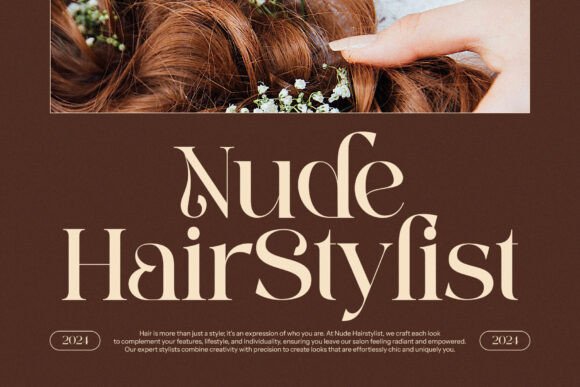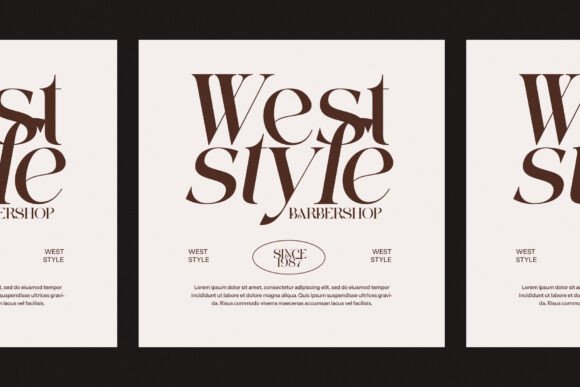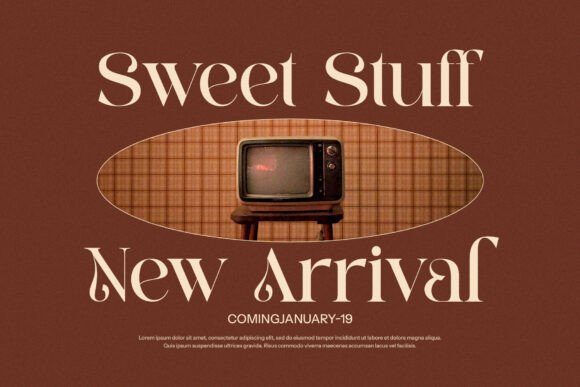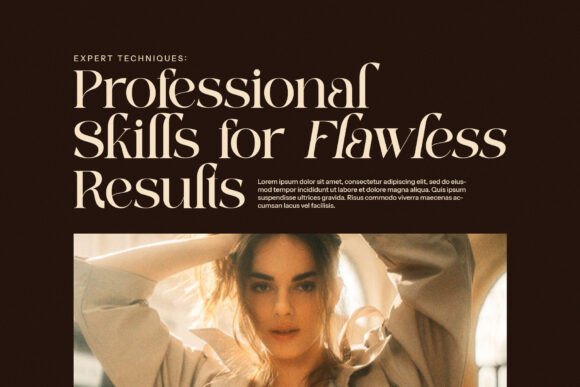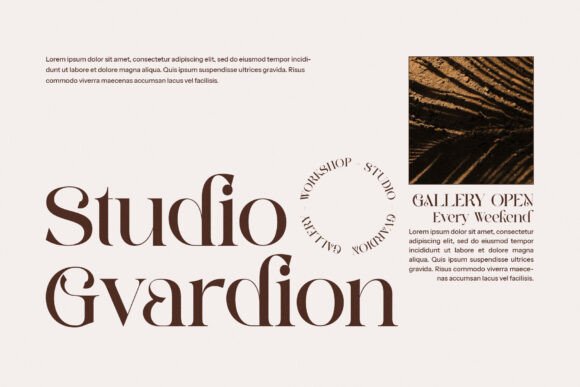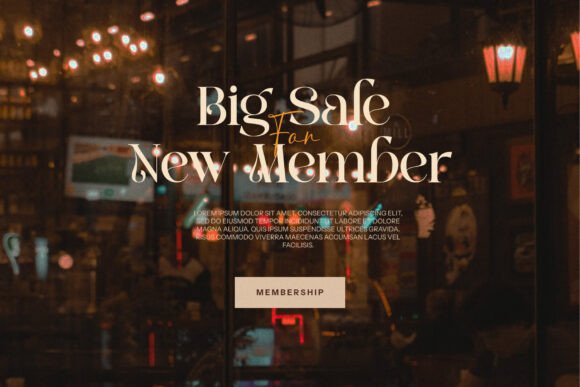
The Perfect Blend of Vintage Charm and Contemporary Elegance
Have you ever found yourself scrolling through design inspiration boards, searching for that perfect font to elevate your project to the next level? For many creatives, this is a familiar moment of frustration and excitement. The search for the perfect font can be a long and arduous one, but what if we told you that we’ve found the perfect solution?
Enter Angils Font, a beautifully crafted, modern serif typeface that seamlessly blends vintage charm with contemporary elegance. This stunning font is perfect for a wide range of design projects, from luxury branding to editorial design. With its unique letterforms and delicate curves, Angils Font is an ideal choice for brands looking to establish a luxurious, high-end aesthetic. Whether you’re a seasoned designer or just starting out, Angils Font is a valuable addition to your design toolkit.
Key Features of Angils Font
- Character Count: The font contains a wide range of characters, including Latin, Cyrillic, and Greek alphabets, as well as punctuation and symbols.
- Unique Characteristics: Angils Font features a unique blend of modern and traditional elements, with a focus on legibility and readability. Its distinctive letterforms and subtle flair make it an excellent choice for creative projects.
- Language Support: Angils Font supports multiple languages, including English, Spanish, French, German, Italian, Portuguese, and many others, making it a versatile font for global projects.
Angils Font Review
As a designer, I’ve had the chance to work with Angils Font, and I must say it’s a solid choice for certain projects. Here are some of its strengths:
- ✨ Beautiful, elegant lines that add a touch of sophistication to any design. The font’s curves are smooth and well-balanced.
- ✨ Excellent legibility, making it perfect for body text and paragraphs where clarity is key.
- ✨ Supports a wide range of languages, including many non-Latin scripts, which is a major plus for global brands and organizations.
However, like any font, Angils has its limitations:
- ⚠️ The font’s weight range is somewhat limited, with only three weights available: light, regular, and bold. This might not be ideal for designs that require a lot of nuance in font weight.
- ⚠️ Some users have reported issues with kerning, particularly when using certain character combinations.
- ⚠️ The font’s italic and oblique styles can look a bit awkward in certain contexts, which might require some careful tweaking.
Overall, Angils Font is a great choice for designers who want a clean, elegant font with excellent legibility. While it may not be perfect, its strengths far outweigh its limitations, making it a solid addition to any design toolkit.
Angil’s Font Practical Application Guide
Tips for Getting the Most Out of Angil’s Font
Here are a few tips to help you get the most out of Angil’s Font:
- Use Angil’s Font for titles and headings to add a touch of elegance and sophistication.
- Pair Angil’s Font with other elegant fonts to create a cohesive look.
Here are a few common use cases for Angil’s Font:
- Business cards and resumes
Alternatives to Angilas Font
Montserrat is a modern sans-serif font designed by Julieta Ulanovsky. It’s ideal for digital interfaces, signage, and publications where a clean and minimalist look is required. Montserrat is more geometric and has a more uniform width compared to Angilas Font.
Lato is a sans-serif font designed by Łukasz Dziedzic. It’s a versatile font suitable for a wide range of applications, including digital interfaces, advertising, and editorial content. Lato is more rounded and has a friendly feel compared to Angilas Font.